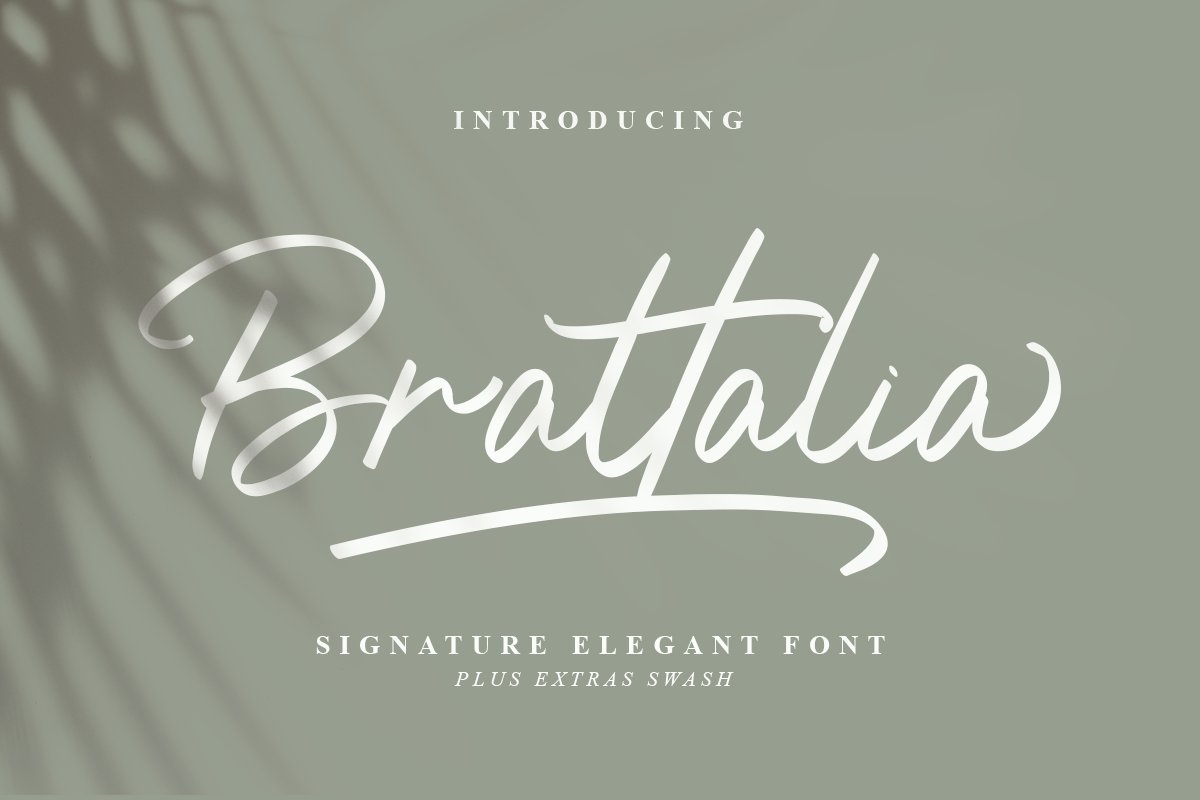
Brattalia Font - EXTRA SWASH
Brattalia Swash
Brattalia
Introduce our new font. Brattalia Signature font. This font is perfect for modern projects, headings, blogs, logos, brandings, invitations, and more!Includes: